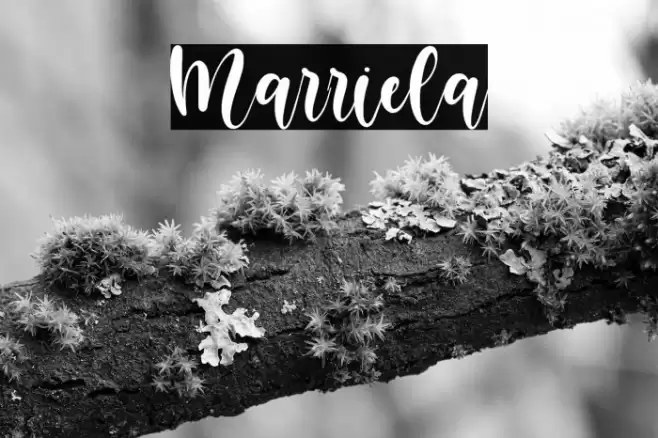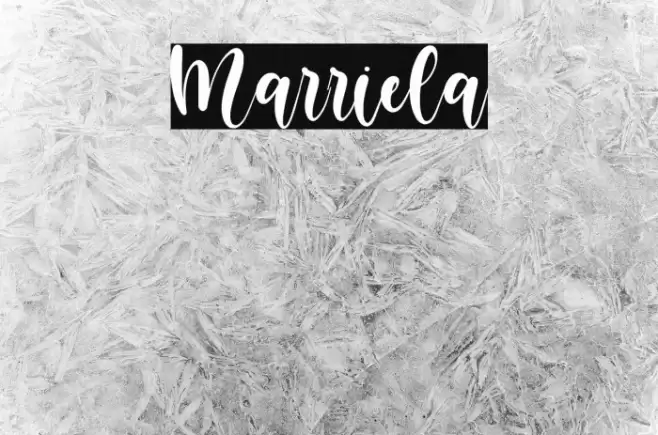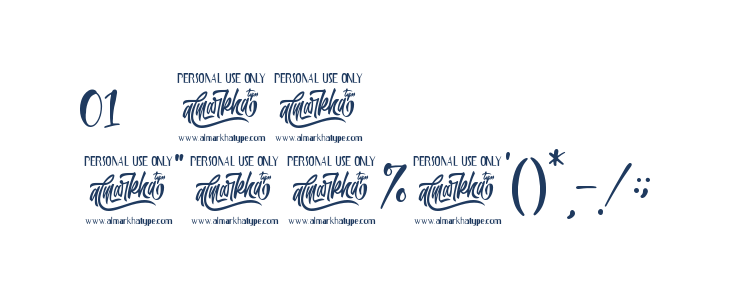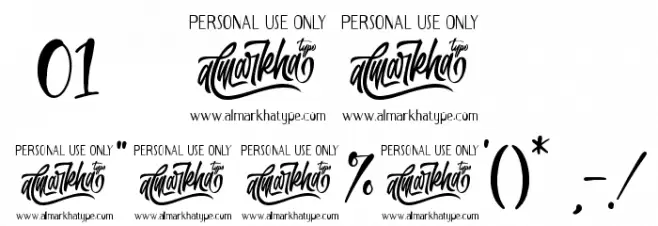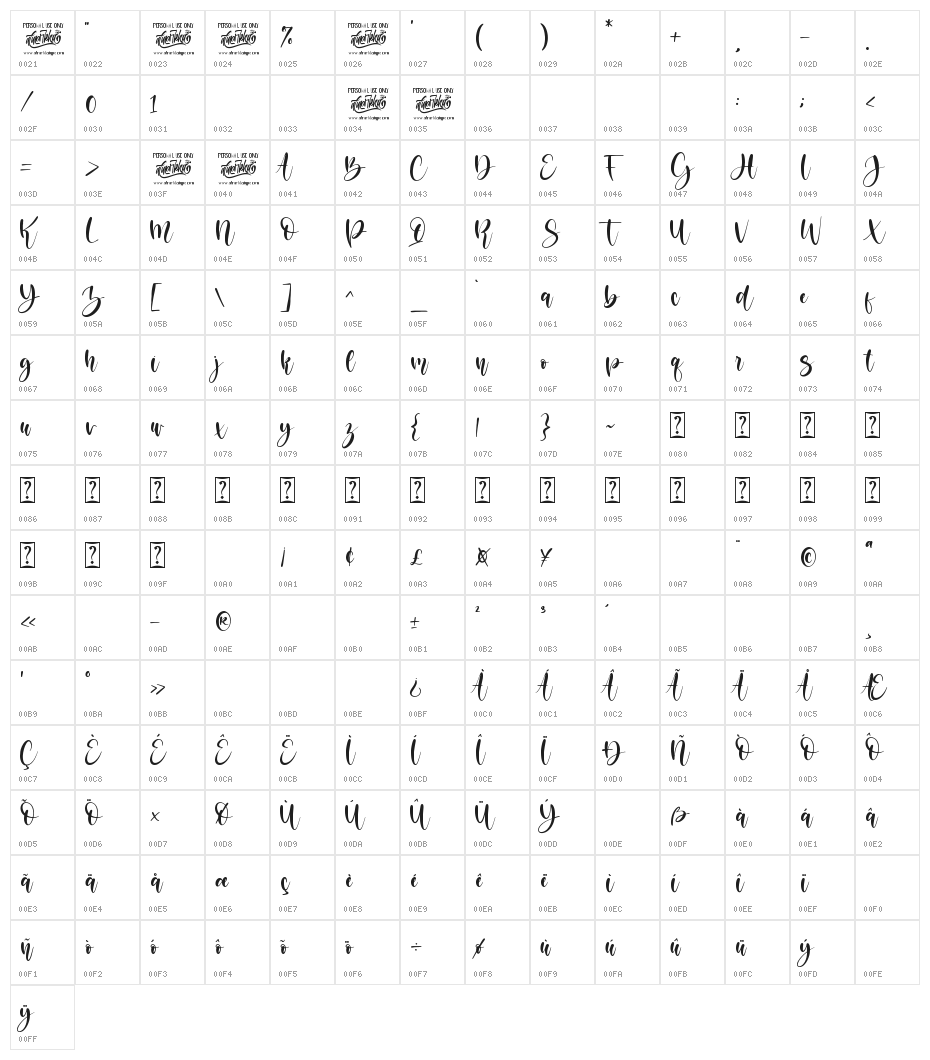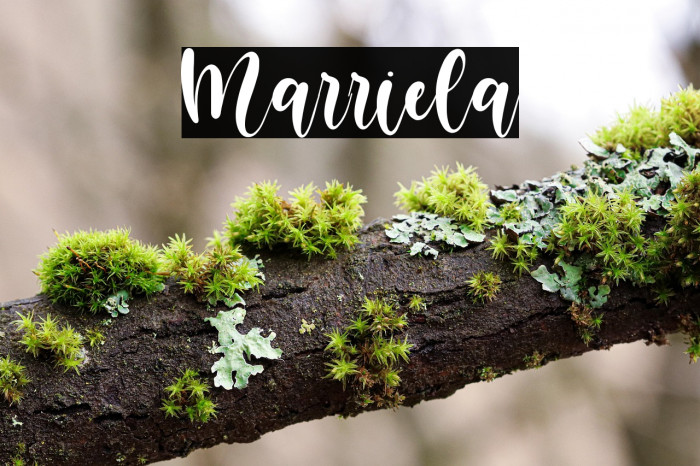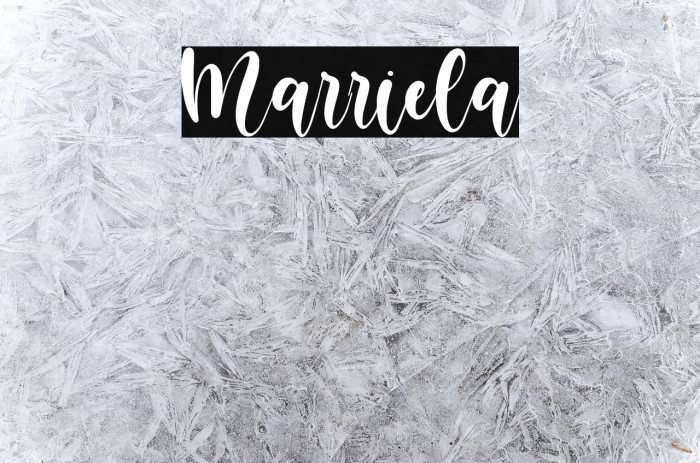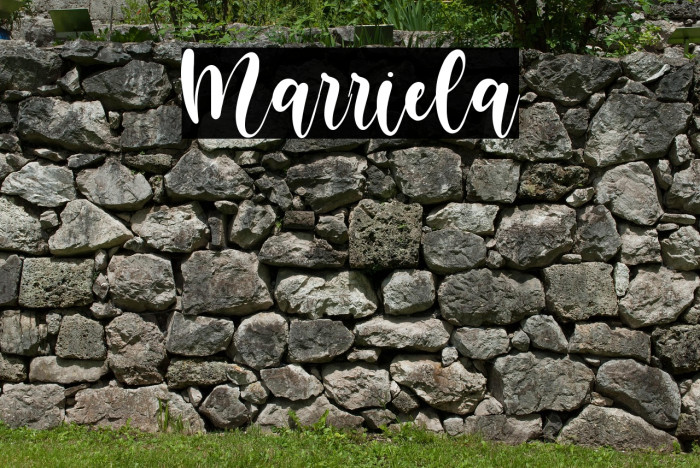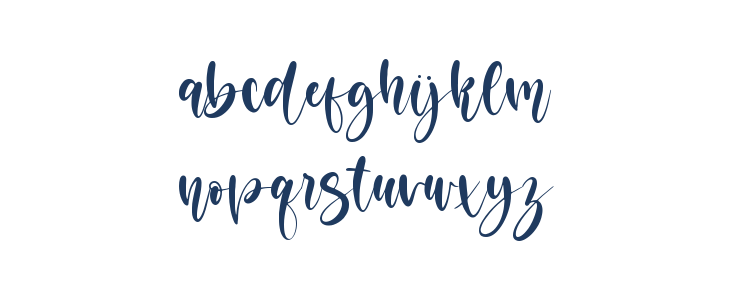
Marriela Font
Marriela Description
This font features a flowing, cursive style with elegant loops and flourishes, giving it a sophisticated and artistic appearance. The uppercase letters are bold and expressive, while the lowercase letters maintain a consistent flow, enhancing readability. The numerals and special characters are designed to complement the overall aesthetic, making it suitable for creative and decorative purposes. The font's playful yet refined design is ideal for projects that require a personal touch, such as invitations, greeting cards, and branding materials.
A flowing, cursive font with elegant loops and artistic flourishes from Regular fonts.
- Proposed Projects: Ideal for invitations, greeting cards, branding, and decorative projects.
- Use Case: Logos, Headlines, Decorative text